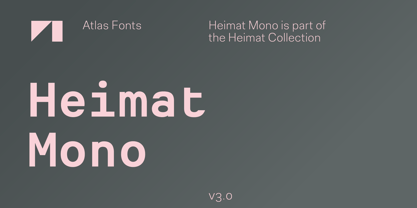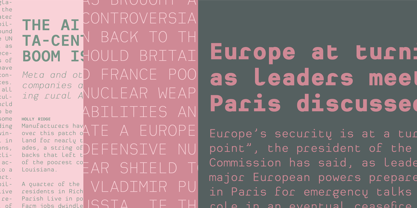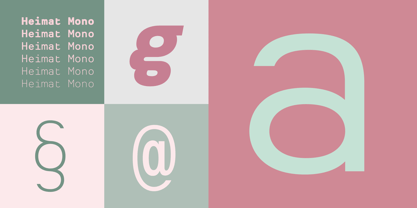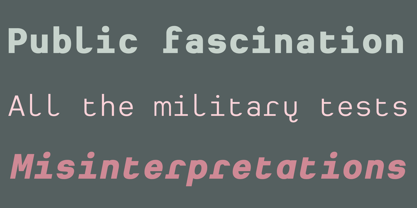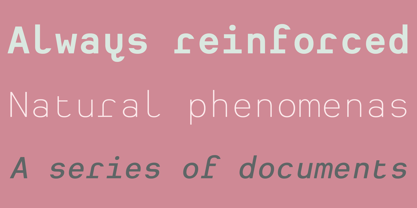
Heimat™ Mono
por Atlas Fonts
La familia tipográfica Heimat Mono fue diseñada por Christoph Dunst y publicada por Atlas Fonts. Heimat Mono contiene 12 estilos y opciones de paquete familiar.
Heimat Mono is the monospaced typeface family within the Heimat Collection, also containing Heimat Didone, Heimat Display, Heimat Sans and Heimat Stencil. Heimat Mono is a legible typeface family designed for contemporary typography, especially for use in headlines and on posters, but also for reading purposes. It combines an idiosyncratic appearance with the feeling of a grid-based letter construction of the late 20s. Since the design might be too extreme for some applications, Heimat Mono’s character set provides two alphabets, the regular one plus an alternate design that comes across as less suspenseful. Heimat Mono [684 glyphs] comes in six weights and contains an extra set of alternate glyphs, many ligatures, lining [proportionally spaced and monospaced], hanging [proportionally spaced and monospaced], positive and negative circled for upper and lower case, superior and inferior, fractions, extensive language support and many more OpenType features.
Diseñadores: Christoph Dunst
Editorial: Atlas Fonts
Fundición: Atlas Fonts
Propietario del diseño: Atlas Fonts